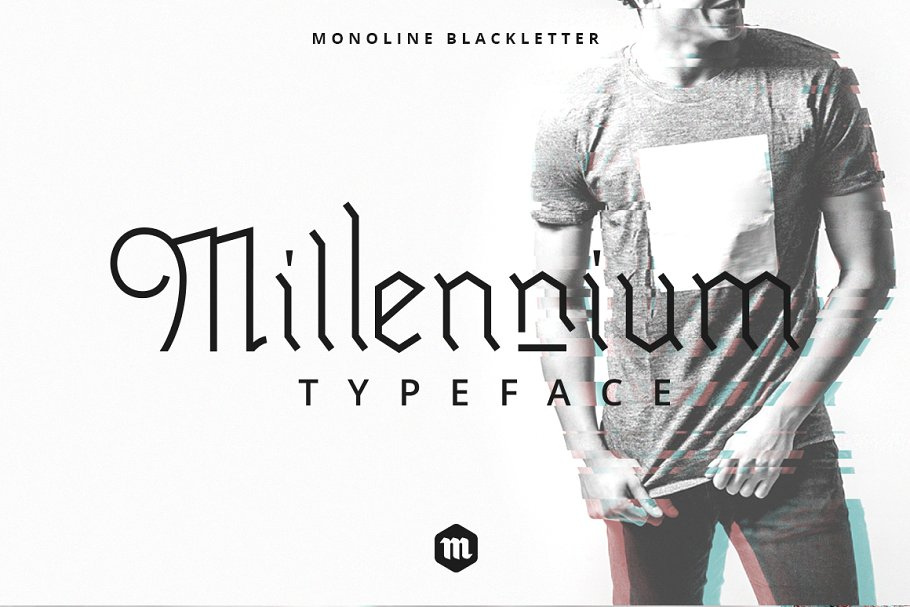
Millennium Blackletter Font
This gothic typeface is perfect for metal bands, medieval themes, gothic branding, fantasy games, historical projects, ceremonial documents, dark luxury brands, mystical designs, and dramatic design applications.
What makes this font exciting is its millennium gothic heritage combined with blackletter authenticity, offering designers a powerful typeface that captures medieval grandeur while delivering contemporary darkness and timeless gothic sophistication.
The Millennium Blackletter font family includes regular, bold, ornate, shadow, and medieval variations, providing complete gothic design solutions for creating dramatic historical visual identities.
Whether you're developing gothic entertainment brands or crafting medieval design experiences, Millennium Blackletter Font Free Download brings exceptional gothic atmosphere and historical authenticity to every application. This dramatic typeface combines traditional blackletter typography with contemporary gothic design, creating letterforms that evoke mystery and medieval power. The font's gothic construction and ceremonial-ready details make it perfect for brands seeking immediate historical recognition.
Millennium Blackletter Font features carefully crafted gothic styling with authentic medieval character that conveys genuine historical expertise. Each character has been designed with ornate proportions and ceremonial elements that enhance the dramatic aesthetic. The font's gothic qualities make it particularly effective for entertainment brands and historical applications.
Professional designers choose Millennium Blackletter Font for projects requiring authentic gothic credibility and medieval atmosphere. Its historical heritage makes it exceptionally well-suited for fantasy entertainment, ceremonial organizations, and dark luxury lifestyle brands. The font's versatile gothic variations allow designers to control the medieval intensity, from subtle historical elegance to full gothic celebration.
The complete Millennium Blackletter Font package offers extensive gothic ornaments and medieval decorative elements that enhance the dramatic aesthetic. Advanced ceremonial features allow designers to create complex gothic effects with multiple historical-inspired options. This comprehensive medieval toolkit ensures designers have everything needed to create authentic gothic communications that celebrate the enduring power of blackletter tradition and medieval design excellence.